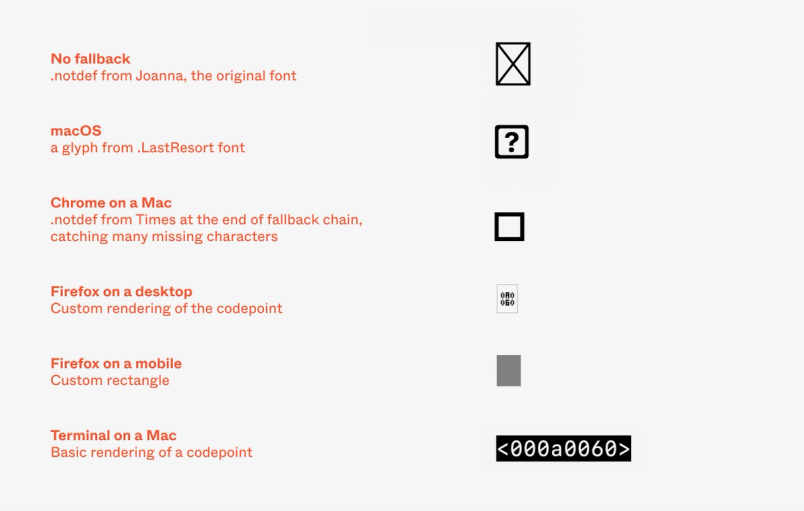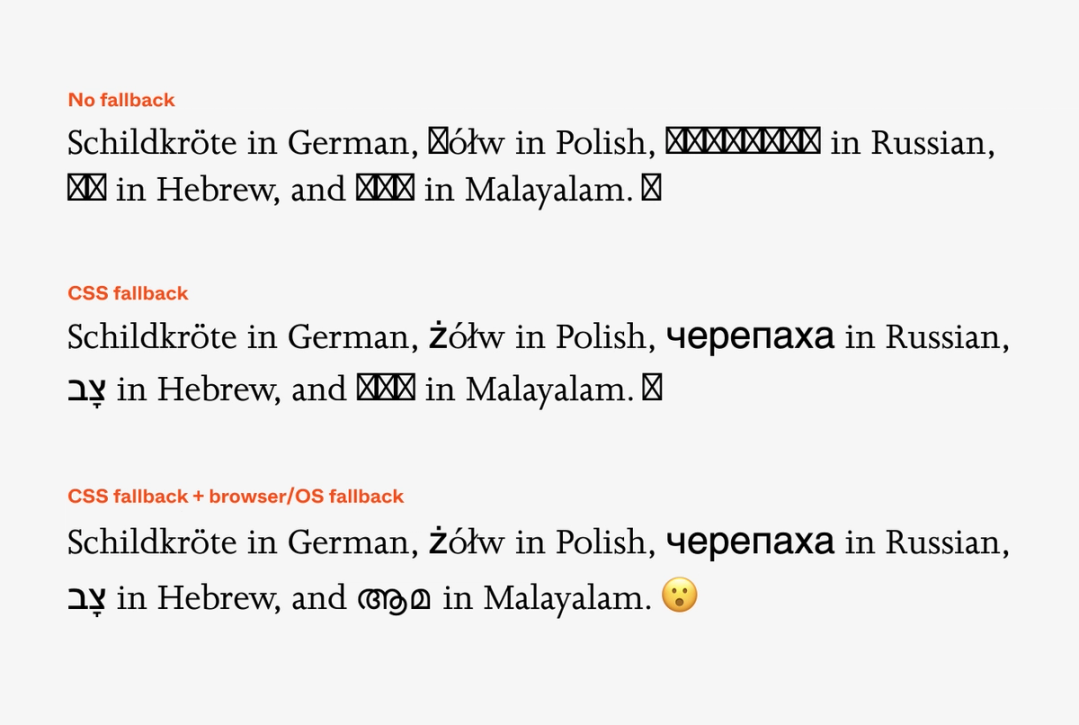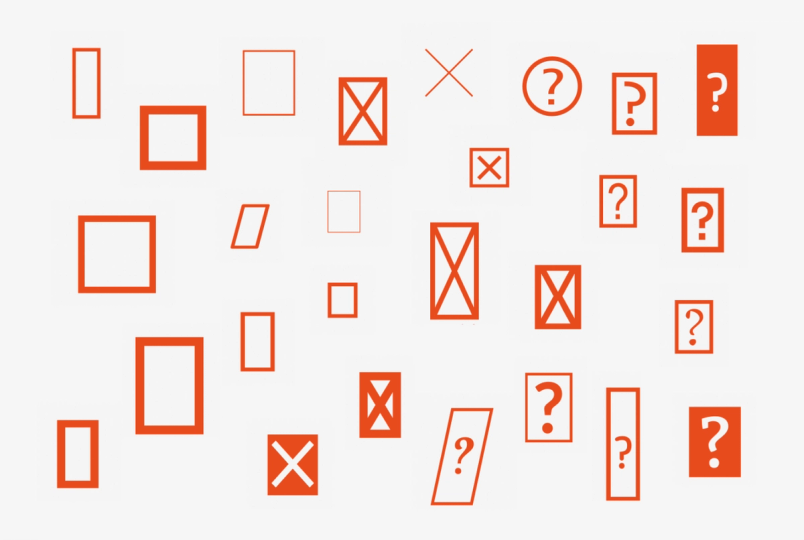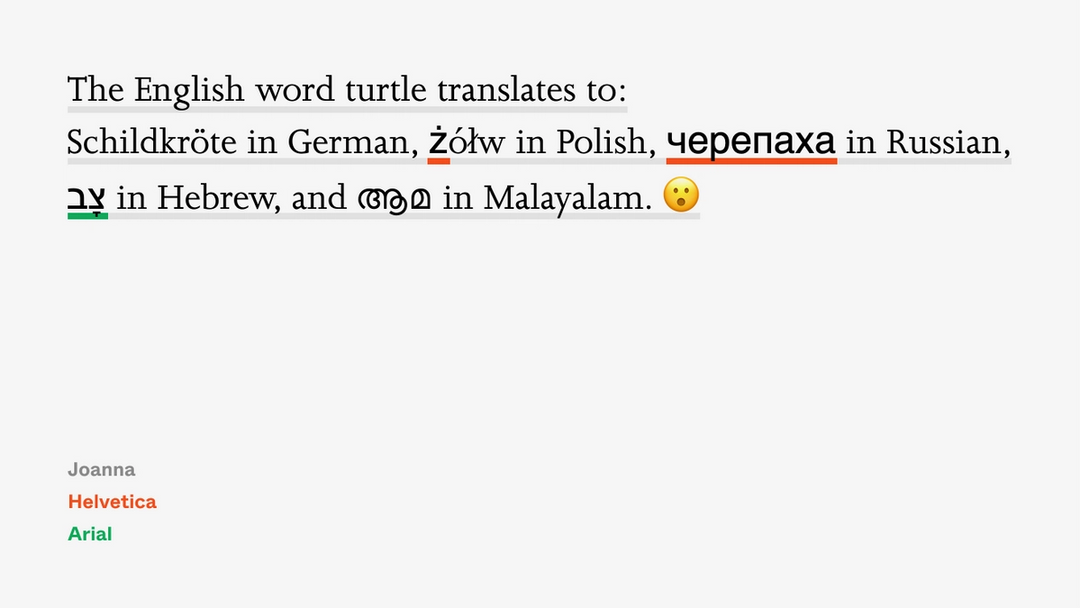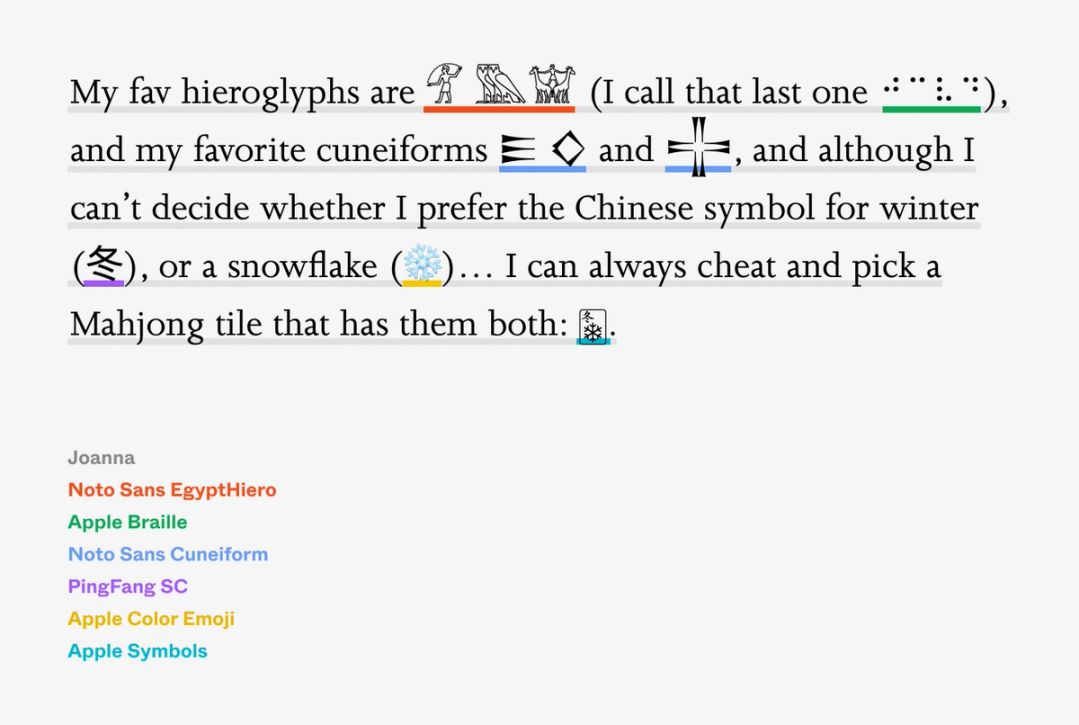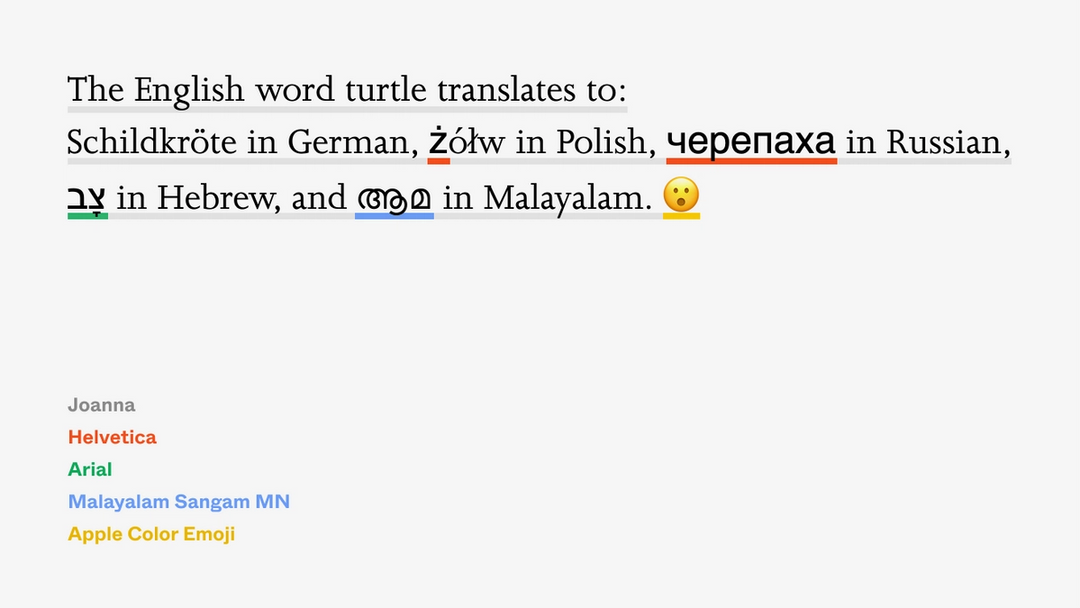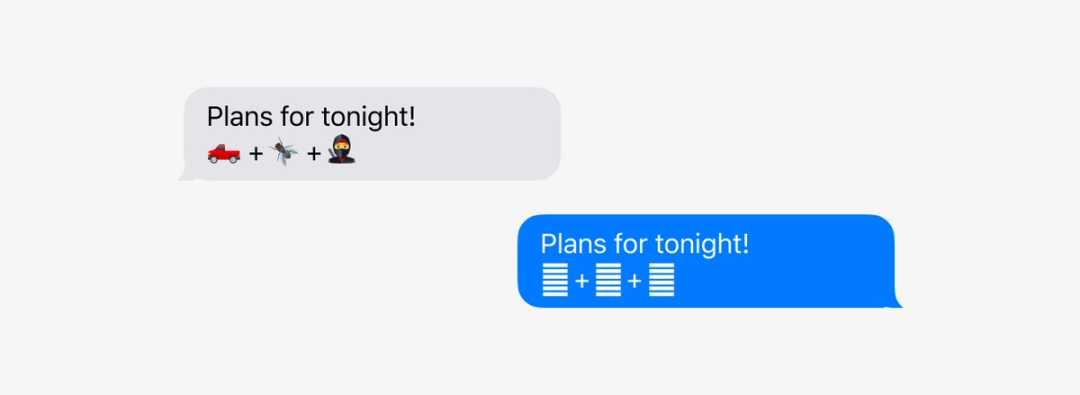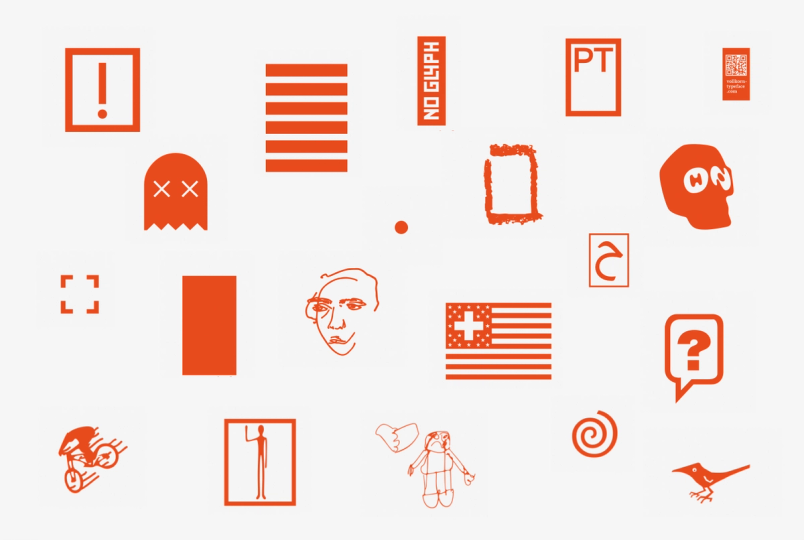
One of the typographical questions we get often is, “How does font fallback work exactly?” It’s not even that Figma does something unique here (although we have our own specific take), but font fallback is just complex, filled with quirks and unexpected side effects. Our resident font enthusiast Marcin Wichary decided to dig into the issue and prepare an exhaustive guide to font fallback, its beauty, and all the pitfalls.
Raise your hand if you’ve ever encountered any of the following—and don’t put it down.
You’ve received a text with weird boxes or question marks like this:
Or, the emoji looked fine to you when you sent it, but arrived weirdly disassembled to the recipient?
You saw someone using cool fonts on Twitter, a place you didn’t think allowed people to choose fonts?
Or, you actually figured out how to use those fonts on Twitter, only to have someone shout at you to think of screen readers—or to complain about seeing empty boxes.
You added an emoji to a line—and at that moment, that line awkwardly shifted down:
You sent someone a really cool kaomoji, only for someone to complain that it doesn’t look that great on their end:
Something tells me there is no one left with their hand down at this point. (If you actually raised your hand, thank you!)
These little transgressions can be confusing, but not frustrating enough to spend time dissecting. They seem like small bugs that permeate everyday interaction with our tasteless machines.
But these are not bugs, at least not in the traditional sense. All of these examples can be explained. Moreover, all have one common underlying cause—an important and in some ways very impressive mechanism of computer typography many of us might be completely unaware of. That mechanism helps fonts when they run out of characters, and it’s called font fallback.
As a type designer, one of your jobs is to give your font every glyph it needs.
A glyph is a typographical term roughly meaning a character. Even a simple western font comes with over two hundred glyphs: twenty-six letters of the alphabet plus the same bunch in uppercase, ten digits, symbols, punctuation, accents.
Not every font is western, of course. If you’re designing for Chinese and Japanese writing, your glyphs will number in the thousands. But either way, there are always glyphs to draw, even in a smaller font: symbols and ligatures, esoteric punctuation, digit and letter alternatives to be used with OpenType features. Supporting another writing system adds a whole other set of glyphs, and there is always another writing system —if you support Latin, why not cover all of Western Europe? And then Central Europe? And then Greek? And then Cyrillic? And Vietnamese?
At some point, you have to draw the line. That line is one last glyph. It comes with a technical name, .notdef, and the dot is there to signify it’s unlike any others. .notdef is a glyph of last resort, one to be used when a font is asked for a character its designer did not bother to draw.
.notdef is the original version of font fallback—a rudimentary solution for a problem that didn’t exist when printing was physical. In the world of metal type, when you hold a letter in your hand you also hold its specific font—and so it’s impossible to ask a font to output a letter it has never heard of. But computers put a strange distance between fonts and text. A computer can display text written by someone else, perhaps long ago, and using a font unknown to its creator, or one that might have not even existed when that text was created. And so a font needs to be able to say, “I have no idea what this particular character is supposed to look like.”
.notdef often looks like a simple rectangle, sometimes with a cross inside. It’s a shorthand for “this space intentionally left blank.” It’s not a traditional Unicode character with its own specific code—rather, just a rectangle that is drawn to cover up for the character that should be there. When you copy and paste it, under the hood it remains the original character you wanted to see. After all, the font might be updated in the future with more glyphs, or you might simply switch to another font that supports the character you wanted:
What gets drawn as .notdef glyph is for the font’s designer to figure out. Even within the rectangle convention, the sizes will vary—and some type designers take their rectangles and cross them out, or adorn with question marks:
Other designers give up and don’t do anything, leaving .notdef to be a blank square. Others still… well, they go a bit wild:
The wild examples are rare, but the regular rectangles? Something tells me you’ve seen one of those rectangles more than a few times in your life.
And yet, you might be surprised how much more often you would see them, if there wasn’t a whole invisible, impressive, and idiosyncratic system to cover every font’s back.
The flavor of font fallback most of us are familiar with comes from the web. It looks something like this:
font-family: Joanna, Helvetica Now, Helvetica, Arial, sans-serif;
The premise is simple: the list gives the browser a chain of command. “To render this element, use a font named Joanna. If you don’t have that, use Helvetica Now. Nope? How about an older version of Helvetica? Don’t have any of those still? Fine, just pick Arial. No Arial? Lord. Just grab whatever generic sans serif you recommend.”
The first font listed is often a web font, packaged with the website itself. If it fails to load—or if it’s taking too long to arrive—the next few recommended fonts are those already popular among users, or installed with various operating systems.
The first font is the perfect scenario. Each further notch is a deeper fallback, and a bigger compromise. You can almost imagine each one coming with a more audible groan of the website's designer, ceding control from a perfectly manicured, often unique font meant to represent the brand or the emotion of the site, to increasingly more generic fonts—reliable, sure, but not that exciting.
Font fallback has been there since the very beginning of CSS, in recognition that there was never a time in our history where every single computer came with the same set of fonts.
Outside of a list of fonts, CSS font fallback didn’t give the web designer more specific control over font fallback: no feedback about which font is ultimately selected, no extra adjustments for size, weight, or letter spacing. I’m sad to report it still doesn’t today. The only meaningful change was the addition of a few more generic words for UI fonts which gained in popularity only within the last decade (one example is system-ui, which comes with its own font fallback horror story).
But even if font fallback appears old and simplistic, you might be surprised by two things. The first one is that it operates not at a level of a font, but at a level of a character. The second one? What you declare in CSS is only a small part of font fallback.
Operating on a level of a character means the browser or the operating system revisits your font fallback chain with every single letter you ask them to print. If a font doesn’t have that one character, another font on the list is tried, and so on.
Let’s pick up the same list as above, simplified a bit:
font-family: Joanna, Helvetica Now, Helvetica, Arial;
The version of Joanna on my computer has 261 glyphs, covering a few adjacent alphabets, but not much else. I don’t have Helvetica Now, so we can skip that. The traditional Helvetica has a whopping 2,252 glyphs, which takes care of Cyrillic, Georgian, and Vietnamese—plus a lot of math and currency symbols. But Arial is even better. The very bastardization of Helvetica that we often scoff at delivers over 3,300 glyphs, besting Helvetica in supporting Hebrew, Arabic, and… semigraphics.
If I asked my browser to typeset a multilingual sentence using the above font fallback list, it would appear as:
This is not a good-looking sentence, illustrating some of the challenges with limited control when fonts fall back. German got off scot-free, its few extra umlauted letters and booming economy ensuring its coverage even in smaller fonts. But Helvetica’s Russian and Arial’s Hebrew feel off—too big and too thick—and Polish fares even worse, falling back to Helvetica for only one out of four letters.
But then again, compared to an earlier example, this is at least a readable sentence. The boxes, often affectionately called “tofu” by font engineers (and something not safe to print by everyone else), are now nowhere to be seen.
If you happen to be in absolute control over text, you can still pick each individual character and delegate a specific font to serve it, making everything look flawless. But you don’t have to be. And, in the universe of the web, where text can come from anywhere and anywhen, you might not want to be.
Carefully fine-tuning your font fallback list with fonts like Helvetica and Arial, or other popular fonts equipped with thousands of glyphs, is a great way not just to preserve style, but also to ensure coverage. It helps me sometimes to imagine fonts as templates—each ready to catch as many letters as it can, but each itself also coming with many holes. The font fallback chain allows the next font to catch letters left behind by the previous one, and so on:
But here’s that other surprise that you might have already spotted. None of the fonts I listed in my font fallback support the Malayalam language. None contain any emoji, either. So how come both of these still render as meaningful glyphs, rather than tofu?
It turns out that after you’re done with your font fallback list, your browser or operating system quietly adds over a dozen more fonts to help you out, including some fonts created expressly just for this purpose.
If Arial felt impressive at over 3,300 characters, just look at the scope of the entire Unicode. Today’s edition of the universally adopted standard that governs how to encode every character in digital communication has over 140,000 of them. Tomorrow’s will have even more.
It’s an impressive number compared to early computers struggling with handling 63, 127, or—if you were lucky—255 characters. But it makes sense if you consider Unicode is meant to cover 150 different scripts (from the omnipresent Latin all the way to obscure scripts like Old Permic, a 14th-century adaptation of Cyrillic that fell out of use 400 years ago) and tens of thousands of symbols (among them hundreds of arrows, math symbols, domino tiles, alchemy, and Egyptian hieroglyphs right next to their modern reincarnation, the emoji).
For a font designer, the task of drawing 140,000 glyphs would be brutal, exhausting, insurmountable. And even if someone chose to do that, it would result in a font file so huge it might be impossible to load.
But if no font contains all the characters, then the alternative becomes harrowing for a web designer. Imagine putting together Wikipedia’s typesetting under these circumstances—being forced to find different fonts for different parts of Unicode, remember which one does what, update them occasionally, maintain the huge font fallback chain, and so on.
Your operating system and your browser do that so you don’t have to. They accomplish that by queuing up a phalanx of fonts, and asking those fonts to catch any characters not supported by your font fallback chain.
As an example, the four-font list on my Mac gets quietly extended to look more like this:
font-family: Joanna, Helvetica Now, Helvetica, Arial, Menlo, Monaco, .AppleSymbolsFB, LucidaGrande, CourierNewPSMT, GeezaPro, NotoNastaliqUrdu, Ayuthaya, Kailasa, PingFangSC, PingFangTC, HiraginoSans-W3, HiraginoSansGB-W3, PingFangHK, AppleSDGothicNeo, KohinoorBangla, KohinoorDevanagari, KohinoorGujarati, MuktaMahee, NotoSansKannada, KhmerSangamMN, LaoSangamMN, MalayalamSangamMN, NotoSansMyanmar, NotoSansZawgyi, NotoSansOriya, SinhalaSangamMN, TamilSangamMN, KohinoorTelugu, NotoSansArmenian, EuphemiaUCAS, STIXGeneral, Galvji, Kefa, .NotoSansUniversal, AppleColorEmoji, .LastResort;
And the situation is similar for Windows:
font-family: Joanna, Helvetica Now, Helvetica, Arial, Tahoma, Segoe UI, Segoe UI Historic, Segoe UI Symbol, Segoe UI Emoji, Cambria Math, Abyssinica SIL, DaunPehn, David, DokChampa, Ebrima, Estrangelo Edessa, Ethiopia Jiret, Gadugi, GF Zemen Unicode, Gulim, Han Nom A, Javanese Text, Lao UI, Leelawadee UI, Kartika, Khmer UI, Malgun Gothic, Mangal, Meiryo, Microsoft New Tai Lue, Microsoft YaHei, Mongolian Baiti, MoolBoran, MS PGothic, Myanmar Text, Nirmala UI, Nuosu SIL, Nyala, Phetsarath OT, Plantagenet, PMingLiU, Raavi, Saysettha OT, Shruti, Simsun, Sylfaen, Tunga, Visual Geez Unicode, Vrinda, WenQuanYi Zen Hei, Yu Gothic, Arial Unicode MS, Code2000;
Many of these fonts are responsible for covering a specific locale—NotoSansMyanmar and Myanmar Text take care of Burmese alphabet, for example—while the others have more specific needs. Apple Symbols can help you take care of everything from Braille, through musical notation, to ancient symbols from Apple’s past:
On the other side, Segoe UI Historic contains almost 5,000 glyphs of scripts that are truly ancient—cuneiforms, hieroglyphs, and handwriting like Parthian that disappeared long before the invention of paper:
There are also fonts responsible for taking care of all of the emoji—AppleColorEmoji for the Mac and Segoe UI Emoji on Windows—unique among other fonts because they come in color.
And even though I just said that creating a font to cover all Unicode would be exhausting and impossible, some type designers are brave enough to attempt just that. Somewhere on the above secret font fallback list, there are also monumental fonts, tens of thousands of glyphs and many megabytes each—fonts like Arial Unicode, Unifont, Code2000, or Noto (as in: “no tofu”)—designed to be the last necessary template, and to capture as many leftover characters as possible.
Those fonts are the last true fonts to be asked, the largest safety net at the bottom of font fallback:
I’ll admit that the above two lists are a bit of a simplification. Some fonts only appear for a given language, and other fallback fonts come in pairs linked together—so that, for example, a fallback for sans serif will also look like sans serif. In some circumstances some fonts even quietly impersonate others. (For example, in some Linux distributions, a font called Liberation Sans will pretend to be Arial and quietly take its place!)
But the main principle remains the same and besides that, we don’t have all day, and that hand you’re keeping up is probably hurting a lot by now.
This finally explains what happened exactly the last time we asked the browser to typeset our sentence—two secret fonts stepped in to help, after all the ones we specified threw their hands up in the air:
In other words, we’ve left the land of tofu behind:
This twin font fallback is there for billions of simple everyday uses when only a few characters go missing, but nothing prevents you to typeset small wonders like this one; a sentence that spans millions of years and thousands of kilometers:
It’s not just that you can read this. You can also copy and paste it into your text editor, or onto a website with no CSS… and even if you don’t know anything about typography whatsoever, behind the scenes six very different fonts will be asked to help.
Of course, the seven fonts collaborating above are still fonts. They all have their backstories, their metrics might all feel different optically (remember that font size is more of an idea than a strict measure), and if one of them happens to be taller than the others, browsers will extend the line height of the whole line to accommodate it. This explains why including emoji in text sometimes pushes things apart—the emoji is not supported by the main font, so it falls back to a font like Apple Color Emoji, and that font has slightly taller vertical metrics than the one you’re using.
But those issues aside, it all works, and works surprisingly well. So well, as a matter of fact, that it made all of us really adventurous when handling text.
It is no surprise that within 140,000 characters, one can expect some visual repetition. Languages and scripts evolved over time in a messy way, converged and diverged without a master plan, borrowed from and disagreed with each other.
Even in English, people confuse O (oh) with 0 (zero). And then, part of Cyrillic looks exactly like Latin, and a part of Latin could pretend it’s Greek. You can spell your out-of-office message “ОΟO” in a creative way like I just did, where one letter is Latin, one Greek, and one Cyrillic—and often no one will know any better. The circle itself is such a universal shape there will be no surprise that it appears over and over again in Unicode: as ◯, and ○, and ◌, and 𝗢, and 𝐎, and 𝖮, and ⚪, and ⥁, and many, many more—and as you can imagine, there are more such simple shapes. Typography, as it often does, has a special name for this: glyphs that look alike are known as homoglyphs.
What’s more, Unicode also uses a bunch of styled Latin alphabets. Many come from mathematics where different forms of letters mean different uses: operator names, constants, angles, transforms, tensors. Their separate inclusion in Unicode made semantic sense—after all, mathematical variable 𝑎 is different than the vector 𝐚, and a set 𝔸 should not be confused with the matrix 𝑨. But the decision to include them came with a twist. Given all of these special alphabets, Unicode itself contains what feels like fonts.
One of the blessings and curses of typography is that characters themselves are not allowed to have an opinion on how they should be used. And so, we’ve seen homoglyphs employed for nefarious reasons—and we’ve also seen them used creatively. Far away from mathematics, I can grab a few characters intended to represent mathematical sets and say “𝕄𝕒𝕣𝕔𝕚𝕟” just because it looks better than “Marcin.” Likewise, I can write “𝕸𝖆𝖗𝖈𝖎𝖓” without knowing anything about number theory, “ᴹᵃʳᶜⁱⁿ” without intending to attempt exponentiation, or go for the hat trick of “𝘔𝘢𝘳𝘤𝘪𝘯 𝙞𝙨 C⚪⚪L” just because I’m having a great day.
It’s really easy to do that, too. The fact that many letterforms look alike is used by websites like Unicode Text Converter that can quickly allow you to “style” your text by finding Unicode characters that look identical or close enough to the letters you want.
This is some creative visual typesetting, not far away from using the ancient letter ᴥ to create a bear nose in ʕ •ᴥ•ʔ, or a Japanese katakana ツ to form the famous shrug emoticon ¯\(ツ)/¯ .
Those kinds of typographical hacks feel particularly useful in places like Twitter or Facebook that don’t actually allow you to change fonts, or even to apply bold or italic to the one typeface they give you:
But every hack comes with a price. No text you see on your computer is meant only for human eyes. A text that has been “restyled” looks similar, but its actual meaning might be very different. “𝕸𝖆𝖗𝖈𝖎𝖓” will often be impossible to find using search, will make the text impenetrable to people using screen readers (they will announce every letter as “mathematical letter M,” “mathematical letter a” and so on), and… yes, you knew we were heading towards this: it will also be subject to the vagaries of font fallback.
It’s not only that none of the popular fonts contain mathematical symbols or specialized alphabets. Some of the “styles” as seen above also jump between parts of Unicode, letter by letter. And so most of them will fall back to some fonts deep within the system, and since font fallback is so different on different platforms, there’s no way of knowing exactly how any of this will appear on the other side. Here’s an example:
As a typographer, I lament this—and as someone who cares about accessibility, I’d recommend not using any of the special “fonts” outside mathematics. But just like in the turtle or hieroglyph examples above, there’s also something beautiful in the concerted effort of five fonts coming together to show you a simple table-flipping emoticon—combined forces of a few box-drawing characters, two Indian characters, one ancient Latin letter, one Japanese character, and one Chinese parenthesis:
This also explains why if you are allowed to change the font, in situations like this it won’t make much difference. Since many of the characters will come from fallback fonts further down the invisible chain, only the few letters “on the surface” can be controlled:
Most people participating in typographical gymnastics like these won’t even know they are doing that, and that their constructions might look very different away from home. And on some of computers, particularly older ones with a less advanced font fallback, one of the odd characters will keep falling back until it can fall no more—and despite everyone’s best wishes, despite all the invisible safety nets, despite the group effort of typographers working on fonts like Arial Unicode and Noto, it will become the dreaded rectangle.
What happens when you ask for something that cannot be shown? For a character no font claims ownership of? For a glyph your phone has truly never seen before? After all that we’ve been through, there will be no surprise that the answer is: it depends.
When a character falls through all the templates and hits the ground, some platforms will choose to draw nothing at all. (Figma chooses this path. It also, by the way, falls back only to Noto fonts. It does so both regardless of the platform it’s being used on—it’s the same approach we take with line height, and for the same reason.) Other platforms will come back all the way to the .notdef tofu character, but from the first font you asked about.
But there are other approaches, too. A few places take fallback failures into their own hands, and away from fonts altogether. Firefox on mobile phones will draw a gray rectangle, and its laptop equivalent will draw a rectangle… with the Unicode code inside—great for nerds, and possibly stressful for anyone else:
(Your browser, if you’re curious, will show this: .)
But there is a trick. As you might’ve noticed above, at the very end of the fallback chain, macOS adds a secret font with a beautiful name .LastResort. It’s a font with a very simple purpose: to fall with grace. Its mission is to draw a consistently good-looking nice square with a question mark, and to do so for each and every character you ask it to typeset.
It’s one missing character to rule them all, a nicely balanced question mark inside a rounded rectangle. It being last in the chain means it will be shown for every missing character, regardless of the font you wanted, ignoring its designer’s .notdef wishes.
Making sure even the tofu looks consistent is a very Apple thing to do, but their way also shows us an opportunity. If you’re interested in controlling font fallback, there is at least one simple way: you can always put a catch-all font at the very end of a fallback chain. Such fonts are called, well, fallback fonts—and there a few of them in existence: Adobe NotDef (drawing consistent tofu), Adobe Blank (drawing nothing at all), and a prior version of Last Resort that actually tries to help you by showing you at least the area of Unicode your character comes from.
Fallback fonts are like the bus that picks up the slowest race runners when the street needs to be reopened for car traffic—at that point it’s less about finishing the race, and more about avoiding a disaster:
The universe of typography has its own disasters, too, and this brings us to one more character that you might recognize. It sports a boring name, Replacement Character, looks like this: �, and steps in when things go horribly wrong. It’s unrelated to font fallback, but we need to talk about it for completeness’s sake.
Replacement Character is used most often to tell you that something is wrong with the data, that the numbers themselves make no sense. If the numbers make no sense, there is no real reason to preserve them, so the � character is different than .notdef in that it has its own Unicode code: once you see it, you can copy and paste it at will.
Funnily enough, � follows the normal fallback rules itself, and even though it is not mandatory the way .notdef is, some font designers include it also. That means some fonts have two ways to tell you “I have no idea what to do with your request”: answering with .notdef if you’re asking for something they can’t deliver, and � if you’re asking in a way they can’t understand.
That also means that � might look slightly different under different circumstances, although the wild creativity unleashed at .notdef is nowhere to be seen here:
So there you have it. Multiple versions of .notdef, official and secret font fallbacks, .LastResort font with its manicured question mark, and another question mark that means something else altogether. But there’s one thing that will make this even weirder—the thing that arrived not so long ago and made typography more complex for everybody.
Sure, in some sense emoji are very simple. There are no different scripts, no different languages, no bold or italic. All emoji on your computer are usually served by one big font.
But emoji are unique in at least two ways. The first one? They change. A lot. Every year seems to deliver a hundred or so new emoji, and more than a few updates to existing ones. As I write this, the latest version, Emoji 13.0, has been announced early in 2020. It itself contained 117 new emoji. Emoji 13.1 is already shaping up with a few contenders such as “heart on fire” and “face in clouds,” and we already know that Emoji 14.0 will be announced in about a year. For typography, familiar with units of time such as millennia, emoji move at unprecedented speed.
Like every other glyph, emoji follow the rules of font fallback. As you’ve seen above, platforms secretly add an emoji font to the chain. And you could even imagine installing various emoji fonts on your computer, and doing it the traditional way, too:
font-family: NotoEmoji, AppleColorEmoji, JoyPixels;
The reason you don’t see that often in practice is that emoji fonts—being multicolored, and even sometimes bitmapped—are heavier than even Arial Unicode and Code 2000, and use strange new font formats. (Apple’s emoji font on my computer weighs more than 200 megabytes, as much space as a few thousand typical western fonts.)
Even more importantly: the emoji font on your operating system is usually the one most up-to-date, so falling back to an older font wouldn’t make too much sense. But the breakneck pace of emoji means that even operating systems lag behind. Today, you could send me a text message with a ninja (🥷), a pickup truck (🛻), and a fly (🪰). Come to think of that, that would have been a very weird text message… but I could only judge it on my phone, since my computer cannot render those three 13.0 emoji yet.
If the emoji font in the fallback chain fails to catch the new emoji, it most often means none of the other fonts can handle it either, meaning the emoji renders as the question mark or tofu.
Except when it doesn’t. This is the other weird part about emoji: more and more of them are composites, arriving as a few separate characters glued together with invisible characters called zero-width joiners. The new black cat emoji? It’s a cat character glued with a black large square character. A polar bear? A bear plus a snowflake emoji. Woman in a tuxedo is a person in a tuxedo followed by a female gender modifier. (But don’t expect this to be consistent: A woman firefighter is a woman emoji + fire engine emoji.) And two men holding hands, one black and one caucasian? It’s five characters under the hood: a man, a dark skin tone character, handshake, another man, and light skin tone—and on top of that, two invisible joiners.
On a fresh computer up-to-date on all the necessary emoji glyphs and the recipes to assemble them, these emoji will look perfect. But for others? Instead of tofu, you might see the composite emoji’s individual parts, in a way that can useful to some (seeing a man in a tuxedo and a female symbol next to it makes it possible to imagine the meaning of the emoji), but confusing to others:
But even if helpful, it will still be—but of course!—inconsistent: any new non-composite emoji will fall back to a .notdef rectangle or a last resort question mark.
There is a historical symbol I really love. It’s a cousin of @—the “commercial at” symbol that found a new life with the internet—but it comes with a more tragic history.
The symbol I love, known as “per,” was once its exact counterpart: you could buy 5 apples @ 10 cents an apple, or pay 10 cents ⅌ apple. ⅌ was more generic and thus potentially more useful than its more specific siblings percent (%) and permille (‰). And, at least in my opinion, it felt more beautiful than the ampersand (&).
But where @ got lucky, ⅌ didn’t. At the end of the 19th century, only a handful of newfangled typewriters decided to support the symbol. Some people, frustrated with the situation, reached out for the pen:
But others stopped using the symbol altogether.
It’s hard today to know for sure whether the typewriters hastened ⅌’s demise, or whether the symbol was on its way out anyway. And yet, I admire people who held onto it and penciled it in, the same way I admire people who do other similar things today when fonts fail them, in effect instigating their own font fallback:
But the internet leaves no room for someone with a pencil. The text moves too fast and travels too far, and fonts change too often for the old rules of typesetting to remain in place.
The invisible shield of font fallback is there to help in all these kinds of situations, although it comes with weird side effects—boxes of tofu, disassembled emoji, weird Twitter fonts, fonts shifting awkwardly, question marks in unexpected places. I hope those mysteries we started with feel less like mysteries right now (okay, lower your hand now, for the love of god).
And you’ll have partners along the way, too. Even if you don’t see a character, you can always copy and paste it into a search engine. An excellent web tool called FontDrop! will allow you to drag and drop a font and see all of its glyphs (including .notdef). And among browsers, Chrome chose to offer a lending hand—if you inspect an element, you can see not only what fonts were asked to help in CSS, but what fonts exactly did all the hard work:
As always with font fallback, you can inspect the result on the receiving end. But when you’re sending it, what remains is mostly hope. And so when I write this, I have no idea whether the 🥷 emoji or the ⅌ symbol will arrive on your computer with all their 21st-century and 19th-century glory, or whether they’ll render as tofu, or one of three different question marks, or not show up at all.
Perhaps you will let me know. But at the very least I know that on my computer, only one of the hundreds of fonts I installed contains one glyph necessary for ⅌ to show up—and likewise, only one learned how to render a ninja. I don’t have to know which fonts those are. Everything just works. Similarly, I don’t have to know this for any of the 140,000 other characters my computer puts under my fingertips.
That this is at all possible, that there’s a battery of fonts ready to jump in and help me out, feels like a small miracle. And the fact that sometimes one might still see a tofu, a decorated question mark, or a dangling skin tone modifier? It’s just a small price to pay.